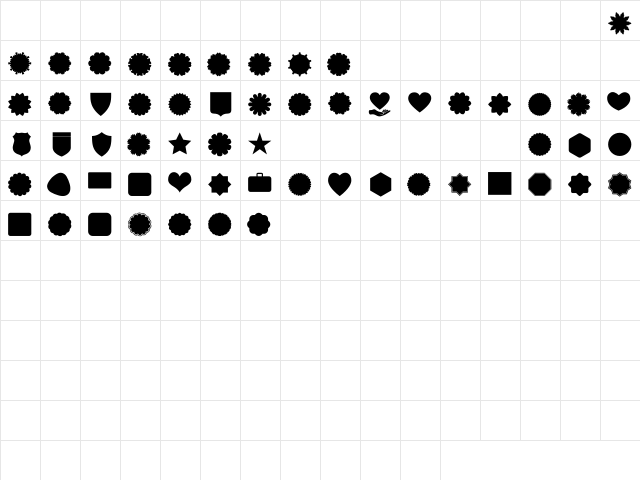
Font Shapes 2019 Regular
Design Context for Font Shapes 2019 Typeface
Font Shapes 2019 is a composed and adaptable typeface that performs quietly and consistently across a wide range of design contexts.
Pro Tip: Use Font Shapes 2019 in both headline and body roles to test its range before committing to a single application.